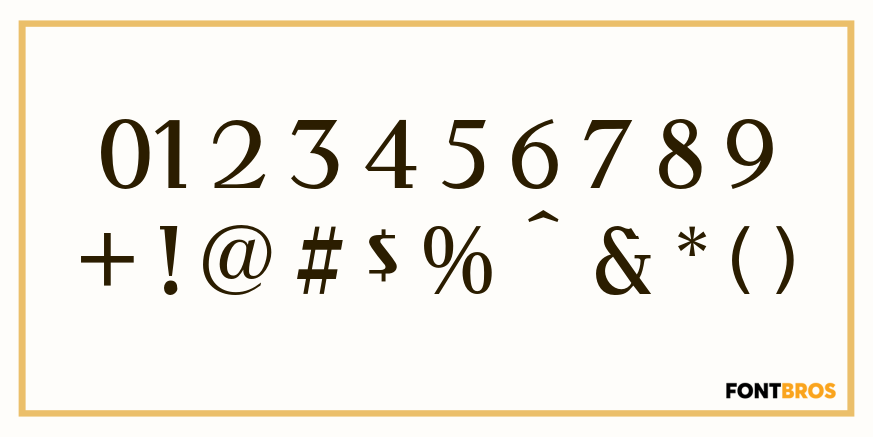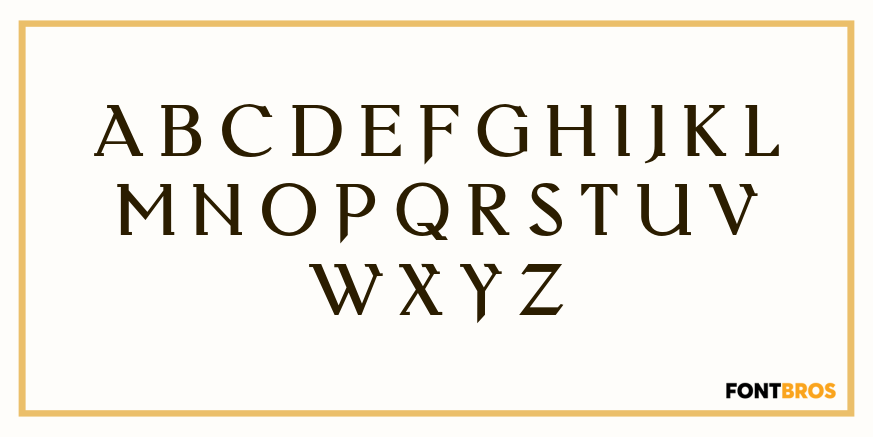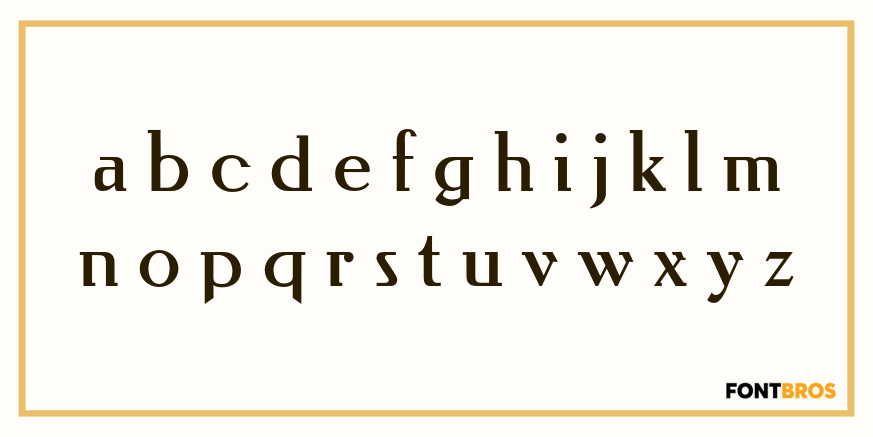
Behrens Antiqua
Designed by Peter Behrens, well known graphic artist and architect in Germany in the late 19th and early 20th century.
This 'Antiqua' was done for Rudhard's Typefoundry in Offenbach A. M. around 1902, and has been used in modern times for museum retrospectives of the designer's work.
Behrens Antiqua includes 256 glyphs.
Behrens Antiqua by Solotype